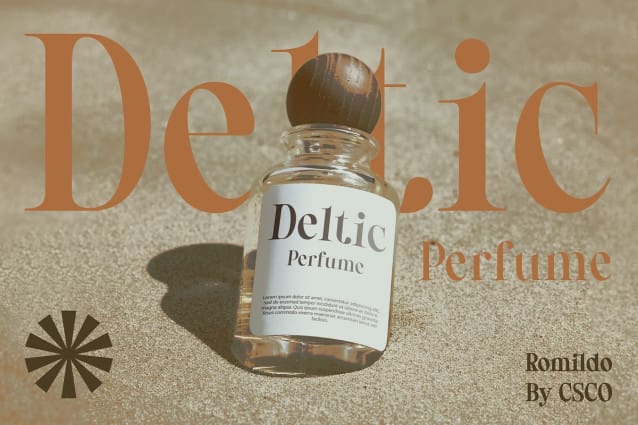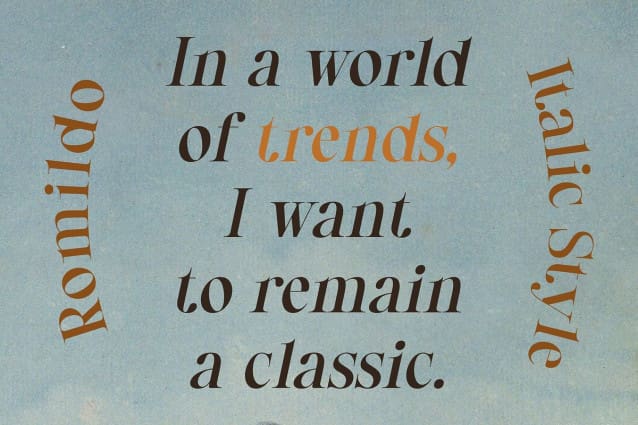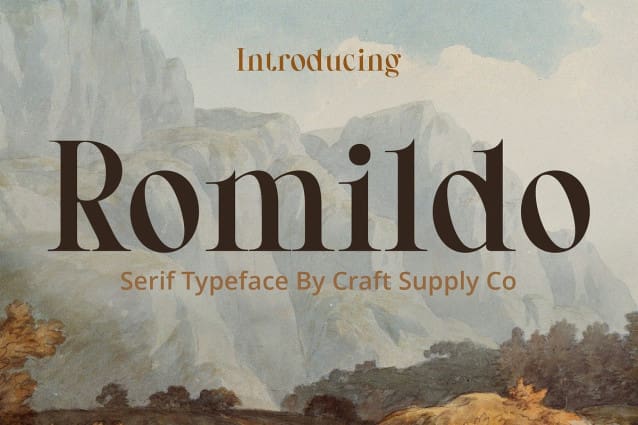
Romildo Font
Romildo Font – Classic Serif: Timeless Elegance in Every Curve. Classic Sophistication Romildo – Classic Serif epitomizes timeless sophistication, with refined serifs and graceful curves evoking nostalgia and the elegance of bygone typography. Crafted with precision, it captures the essence of traditional serif fonts, infusing each character with a sense of grace and refinement.
Captivating Charm Infuse your designs with captivating charm reminiscent of classics, adding class to projects, from elegant invitations to vintage-inspired branding. Romildo’s charm lies in its ability to evoke a sense of nostalgia while remaining relevant and adaptable to contemporary design trends.
Versatile Versatility Step into a world where classic elegance meets modern adaptability with Romildo Font, seamlessly fitting diverse design projects, whether for print or digital media. Its versatility knows no bounds, allowing designers to experiment with various styles and layouts while maintaining a cohesive and polished aesthetic.
Heritage of Craftsmanship Each letter embodies history, a testament to generations’ craftsmanship, making Romildo more than just a font—it’s typographic heritage. With Romildo Font – Classic Serif, designers can pay homage to the artistry of traditional typography while creating fresh and innovative designs that stand the test of time.